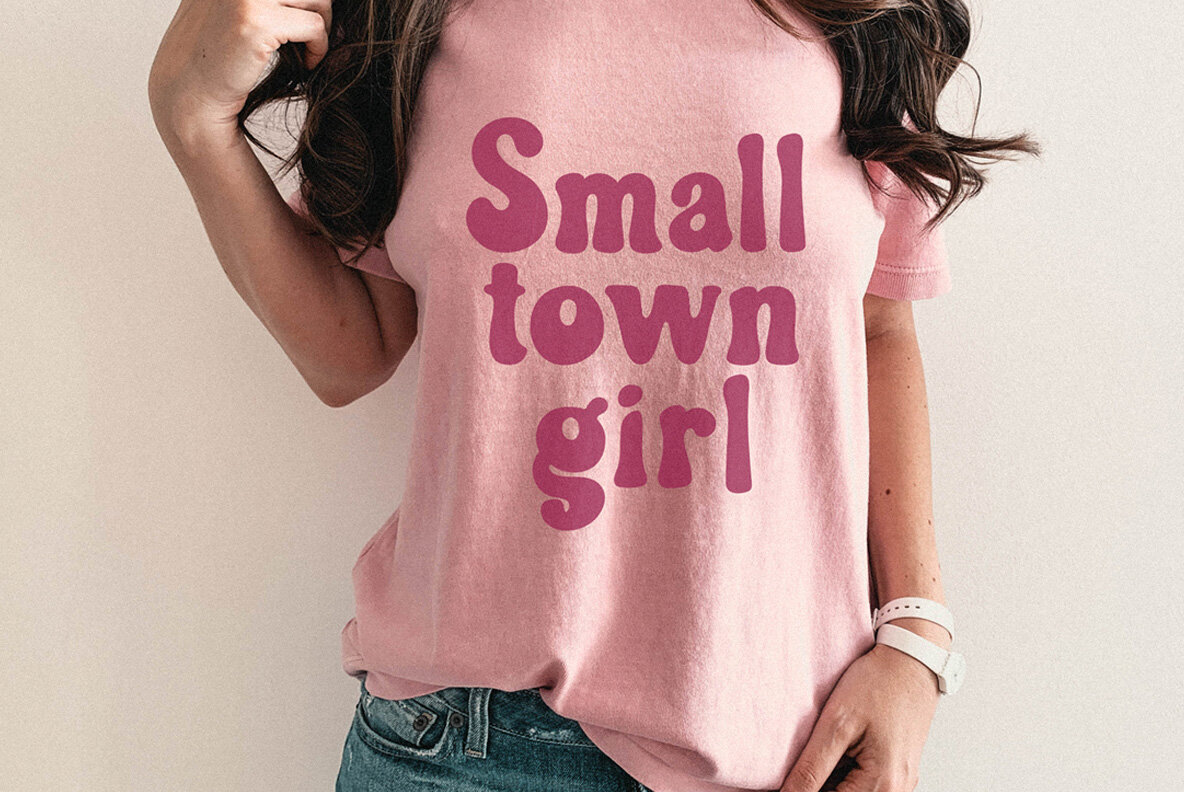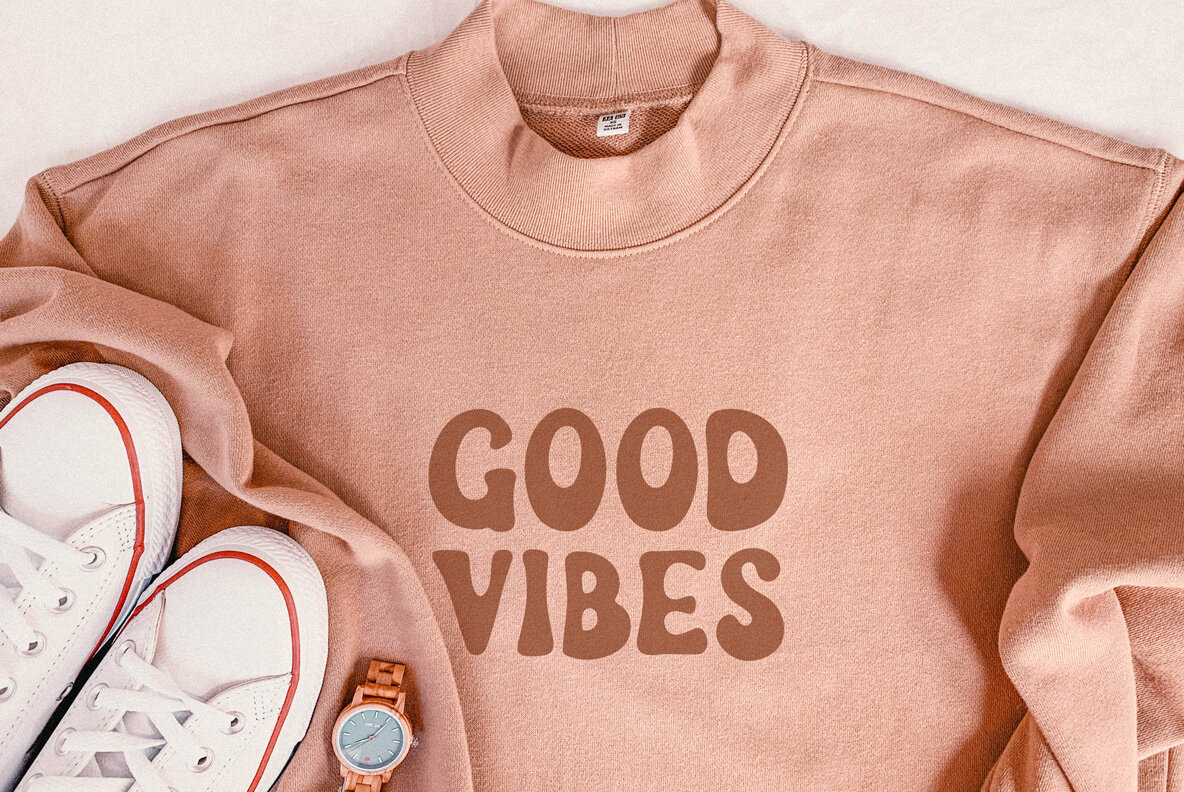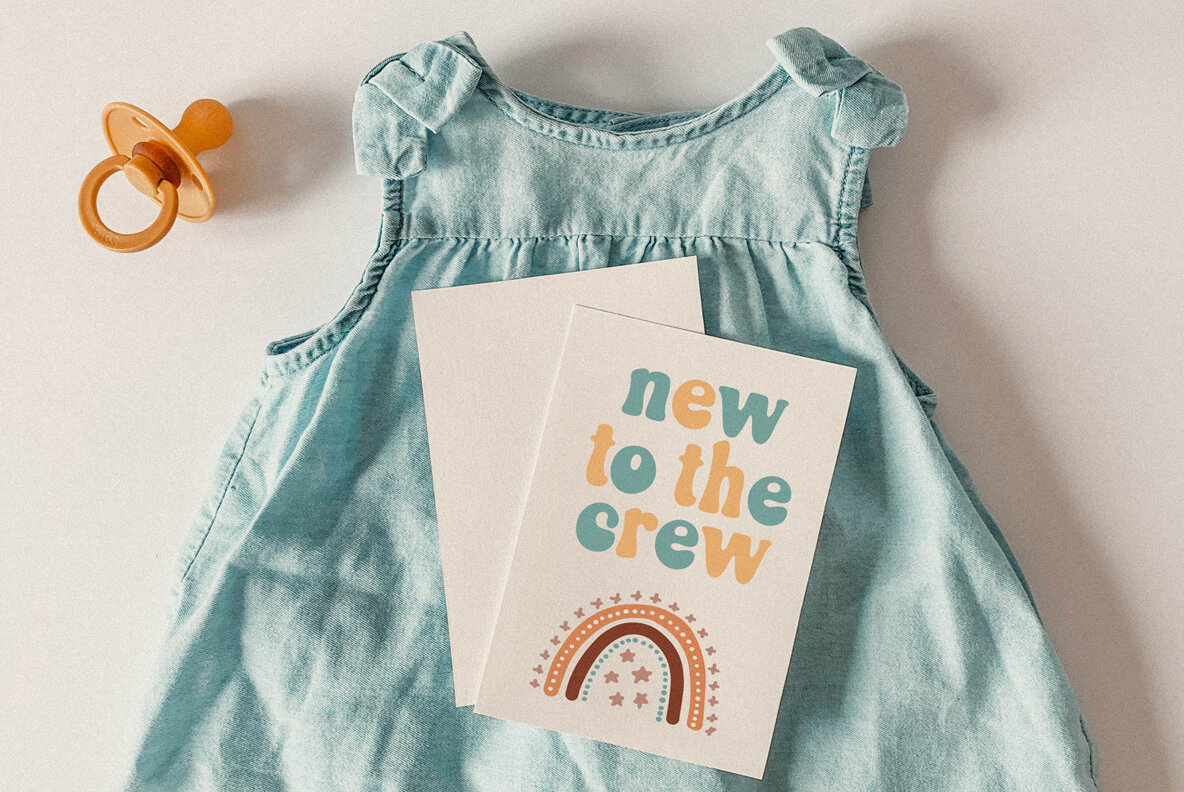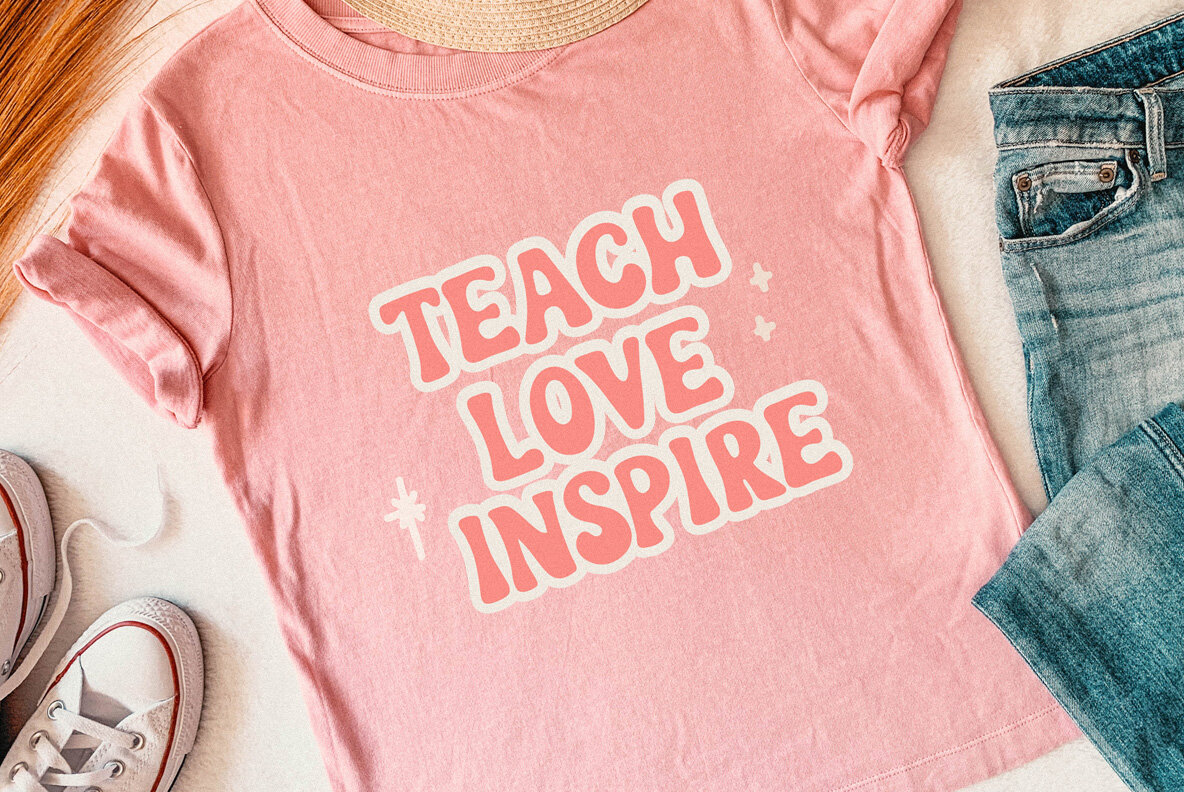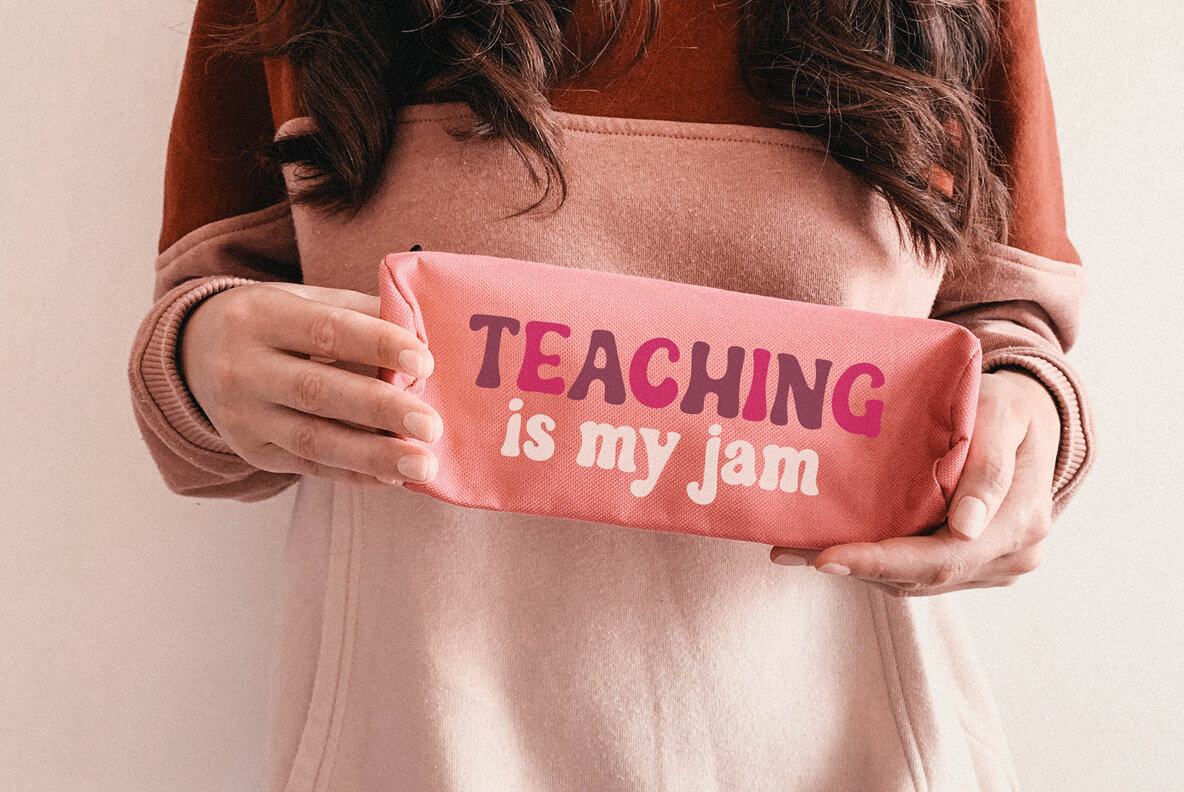
Awesome Font
Awesome Regular
Elevate your design projects with Awesome, a delightful handwriting font that captures the essence of personal touch and creativity. Crafted to emulate the fluidity of handwriting, Awesome adds warmth and personality to everything it graces—from invitations and greeting cards to branding elements and digital interfaces.Awesome: A Charming Handwritten Typeface for Creative Projects
Noteworthy Features
Whether you're aiming for nostalgia or a modern touch, Awesome provides a unique flair that resonates with audiences. Discover its charm and versatility across various mediums.